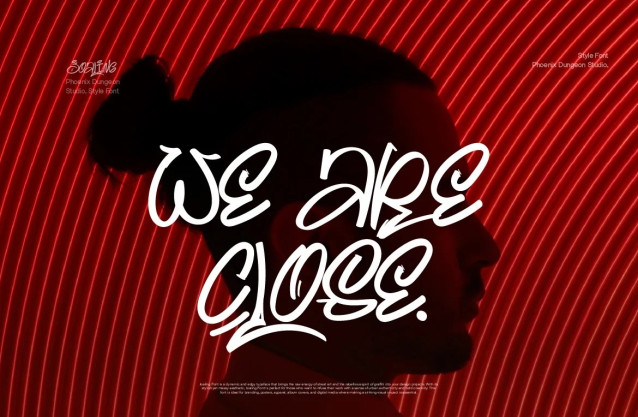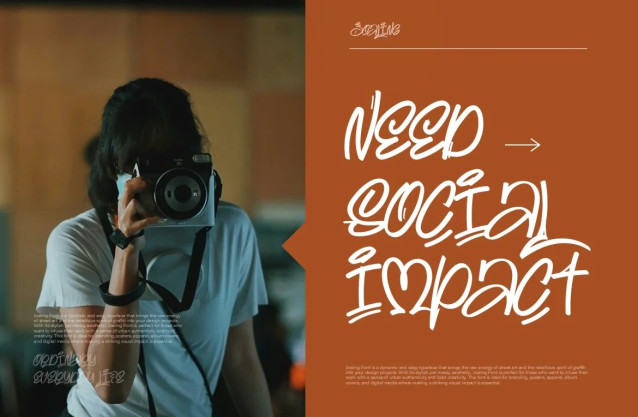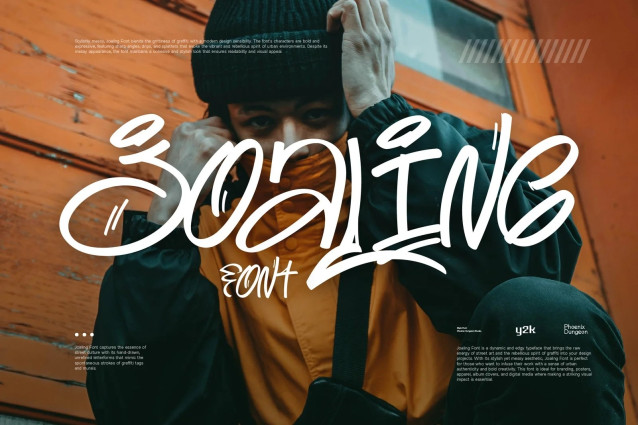
Joaling Font
Joaling Font is a vibrant display font that captures the essence of modern fashion with a street-smart, Y2K-inspired edge. Its handwritten, messy letterforms exude a casual, yet stylish vibe, perfect for designs that blend contemporary trends with a touch of urban authenticity. The font’s dynamic and imperfect strokes add a layer of raw, artistic flair, making it ideal for fashion-forward branding, streetwear graphics, and trendy promotional materials. Joaling’s unique combination of modern fashion sensibilities and carefree, handwritten style ensures a bold and eye-catching presence that stands out with both sophistication and spontaneity.